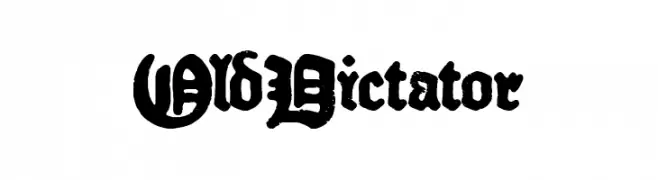
A bold, blackletter font with intricate, angular letterforms and a medieval aesthetic.
A bold, decorative blackletter font with intricate and ornate letterforms.
A traditional blackletter font with bold, ornate letterforms and a medieval aesthetic.
A bold, ornate blackletter font with sharp edges and historical elegance.
A bold, gothic blackletter font with intricate detailing.
A bold, textured blackletter-style font with a vintage, distressed look.
A bold, intricate Blackletter font with high contrast and decorative elements.
An ornate Blackletter font with intricate, angular letterforms.
A traditional blackletter font with bold, intricate letterforms and a historic aesthetic.
An ornate Blackletter font with intricate details and decorative flourishes.